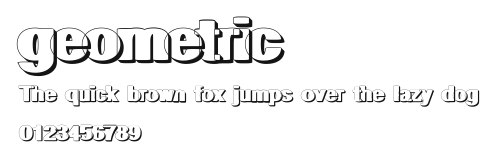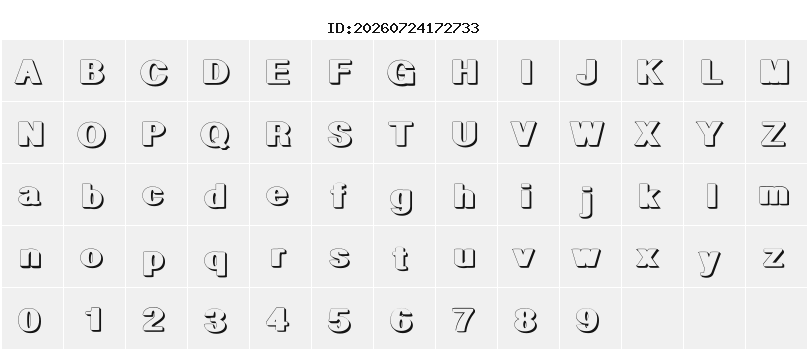
• Font Name: geometric
• Manufacturer: Paulo W
geometric.ttf is a modern, elegant sans-serif font designed for ultimate readability and visual harmony. Perfect for branding, headlines, web design, and print materials.